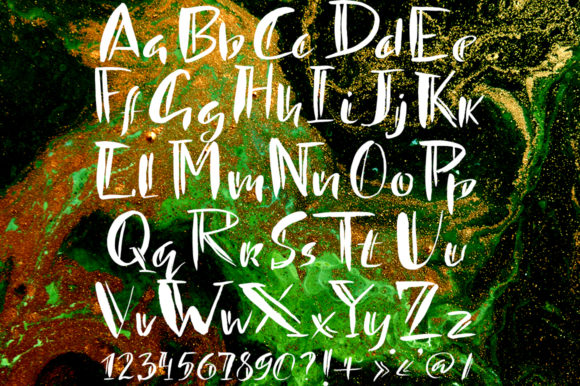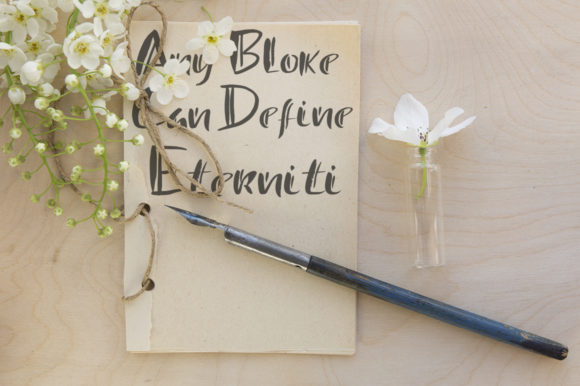
Discover the Unique Charm of Double Ink Font: Elevate Your Designs with a Cool, Trendy, and Quirky Display Font
In the world of typography, fonts play a crucial role in conveying messages, expressing emotions, and creating visual identities. For designers and crafters, finding the perfect font can be a daunting task, especially when looking for something that stands out from the crowd. This is where Double Ink Font comes into play – a cool, trendy, and quirky display font that can instantly elevate your designs and add a touch of personality to your creations.
What Makes Double Ink Font So Special?
Double Ink Font is not just another font; it’s an incredibly versatile and unique addition to any font library. Its distinctive double ink effect gives it a quirky and eye-catching appearance that’s sure to grab attention. Whether you’re working on a branding project, a marketing campaign, or a personal craft, this font’s ability to add a touch of whimsy and fun makes it an invaluable asset.
Key Features of Double Ink Font
- Unique Double Ink Effect: The font’s double ink effect creates a stunning visual impact, making it perfect for headlines, titles, and any text that needs to stand out.
- Cool and Trendy: Double Ink Font boasts a modern and trendy look that’s perfect for designers and crafters who want to give their projects a fresh and contemporary feel.
- Quirky and Playful: The font’s quirky nature makes it ideal for projects that require a bit of personality and whimsy, from playful branding to creative crafts.
- Highly Versatile: Despite its unique appearance, Double Ink Font is incredibly versatile and can be used across various projects, from digital designs to print materials.
How to Use Double Ink Font in Your Designs
Integrating Double Ink Font into your designs is straightforward, and its versatility means it can be used in a variety of contexts. Here are some ideas to get you started:
- Branding and Logos: Use Double Ink Font to create eye-catching logos or brand names that stand out and leave a lasting impression.
- Social Media Graphics: Add a touch of personality to your social media posts and stories with Double Ink Font, making your content more engaging and shareable.
- Marketing Materials: Elevate your marketing materials, such as brochures, flyers, and posters, with this font’s unique and attention-grabbing style.
- Crafts and DIY Projects: Double Ink Font can also add a professional and creative touch to your craft and DIY projects, from handmade cards to personalized gifts.
Tips for Getting the Most Out of Double Ink Font
To truly leverage the potential of Double Ink Font, consider the following tips:
- Experiment with Colors: While the double ink effect is stunning on its own, experimenting with different colors can further enhance the font’s appearance and adapt it to your project’s color scheme.
- Mix and Match: Don’t be afraid to mix Double Ink Font with other fonts to create a unique typography combination that adds depth and interest to your designs.
- Consider the Context: While Double Ink Font is versatile, it’s essential to consider the context in which it will be used. Ensure it aligns with the overall tone and message of your project.
Double Ink Font is more than just a font – it’s a creative tool that can transform your designs and add a unique touch to your projects. Its cool, trendy, and quirky nature makes it an asset for designers and crafters looking to elevate their work. Whether you’re creating branding materials, social media graphics, or personal crafts, Double Ink Font is sure to inspire and enhance your creations.
So, why settle for ordinary when you can make your designs extraordinary with Double Ink Font? Discover its potential today and take your typography to the next level.